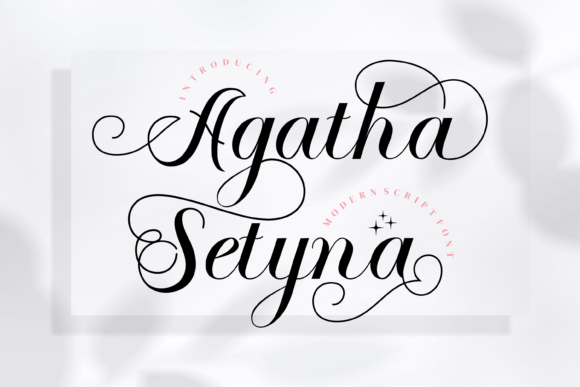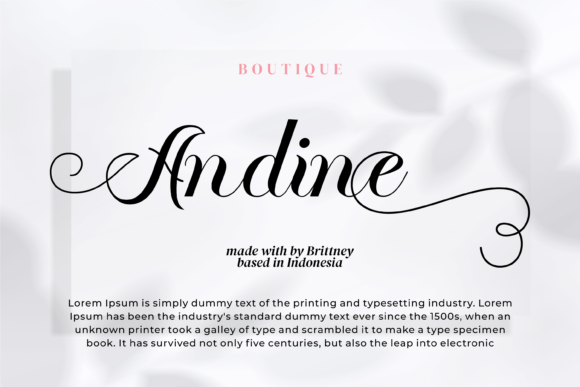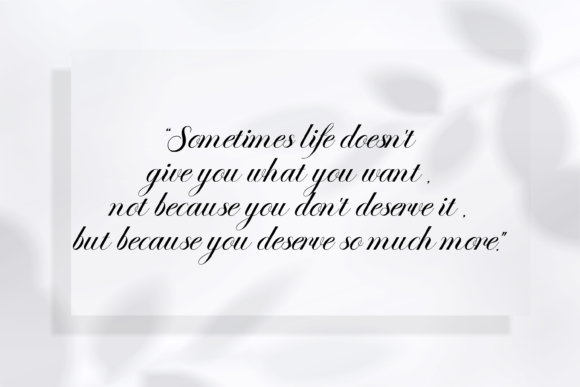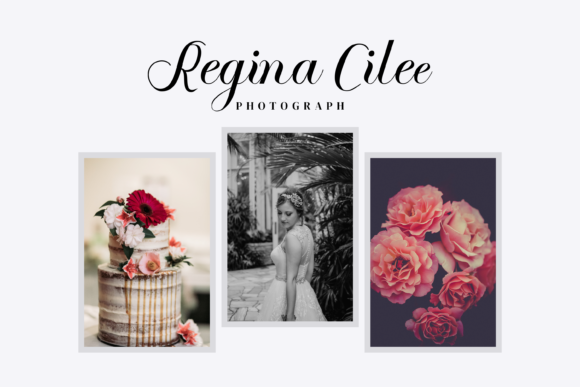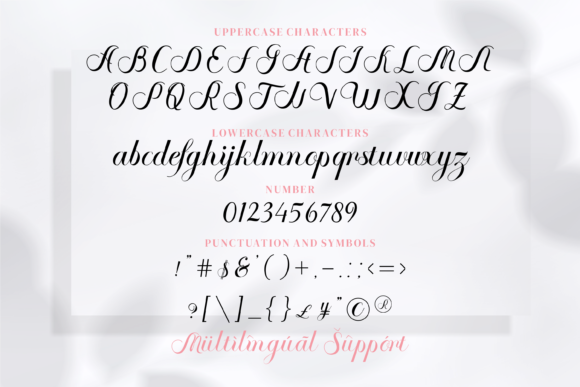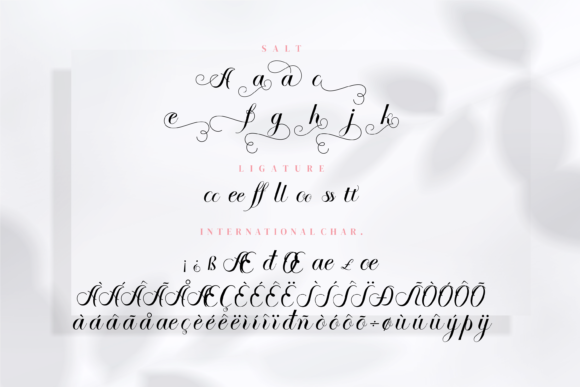
Agatha Setyna Font
About Agatha Setyna Font
Agatha Setyna is a delicate, elegant and flowing handwritten font. It has beautiful and well balanced characters and as a result, it matches a wide pool of designs. Add it to your most creative ideas and notice how it makes them come alive!